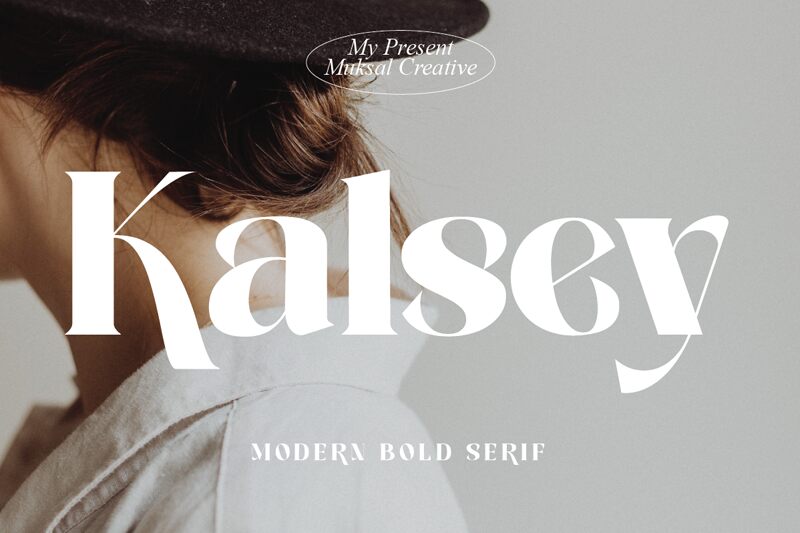
Kalsey Bold
Kalsey Bold emerges as a striking example of typographic artistry, with its robust and full-bodied character exuding confidence and presence. Crafted by Muksal Creative, this serif member of the Kalsey family commands attention with its assertive strokes and elegant curves that strike a balance between traditional sophistication and modern flair.
Its boldness makes it an excellent choice for headlines, branding, or any project where a touch of drama is desired. The font's substantial serifs add a classic touch to its contemporary design, making it versatile enough to suit high-impact visual communications across print and digital media. Whether used in editorial layouts or corporate identities, Kalsey Bold is sure to leave an indelible mark with its distinctive style.